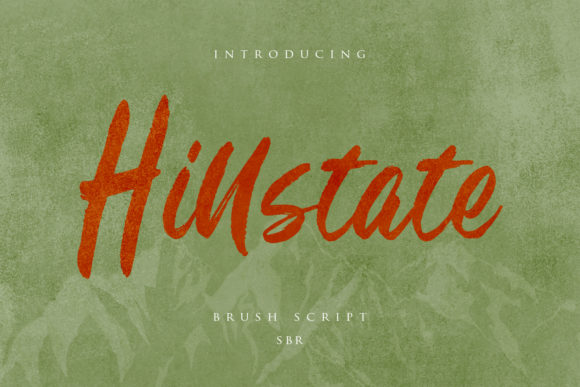
Hillstate Font
Font Name : Hillstate Font
Author : sabrcreative
Introduce the Hillstate Font, an enchanting script font family that will captivate your designs with its alluring natural style. Inspired by fashion and authenticity, the Hillstate Font is a stroke of creative brilliance that transforms ordinary designs into extraordinary masterpieces. With its elegant curves and captivating flow, this font is destined to leave a lasting impression on your audience.
Step into a world of endless creativity as you explore the Hillstate Font's diverse collection. From stunning wedding invitations and heartfelt love letters to captivating social media posts and eye-catching branding materials, the Hillstate Font is the perfect companion for expressing your unique style. Its graceful lines and natural charm add a touch of sophistication to any project, ensuring that your words leave an indelible mark.
Immerse yourself in the beauty of the Hillstate Font's intricate details. Each letter is meticulously crafted to showcase the essence of artistry, with delicate flourishes and subtle variations that bring your designs to life. Whether you're creating logos, posters, or website headers, the Hillstate Font will elevate your work to new heights of visual appeal.
Unleash your creativity and let the Hillstate Font be your guiding light. As a designer, you are an artist, a storyteller, a visionary. With the Hillstate Font as your tool, you have the power to transport your audience to enchanted realms, evoke emotions, and create memories that will last a lifetime.
Don't settle for ordinary fonts that blend into the background. Dare to be different, to make a statement, to leave your mark on the world. The Hillstate Font is your passport to a world of boundless creativity and endless possibilities. Embrace its natural beauty, let your imagination soar, and experience the joy of creating designs that resonate with your soul.